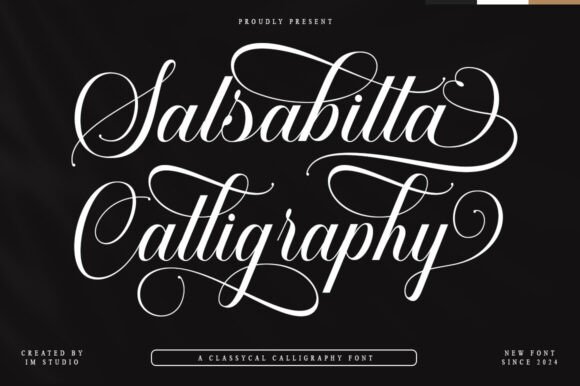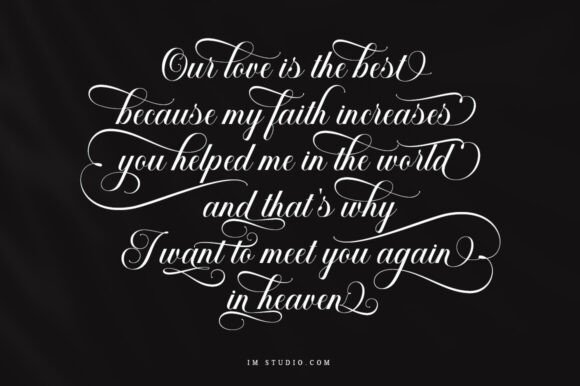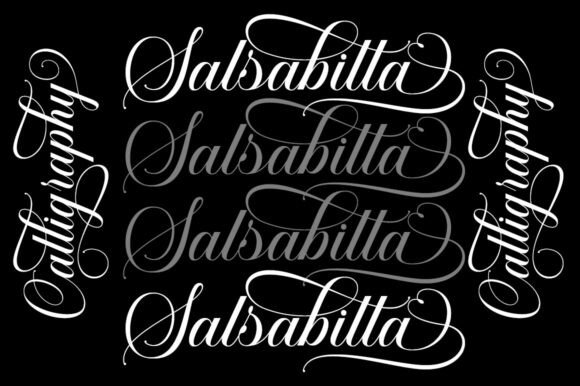
Salsabilla Calligraphy Font
About the Salsabilla Calligraphy Font
Add a touch of class to your work with the Salsabilla Calligraphy Font, a truly exceptional typeface. Salsabilla Calligraphy font is a modern calligraphy design, including Regular. This font is casual and beautiful with swashes. It can be used for various purposes, such as logos, product packaging, wedding invitations, branding, headlines, signage, labels, signatures, book covers, posters, quotes, and more.
Salsabilla Calligraphy Font Usage Examples
Salsabilla Calligraphy Font Example